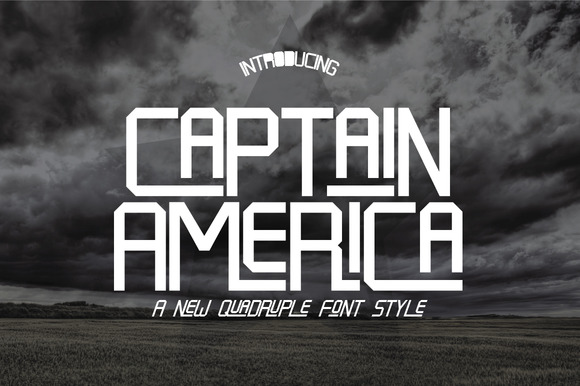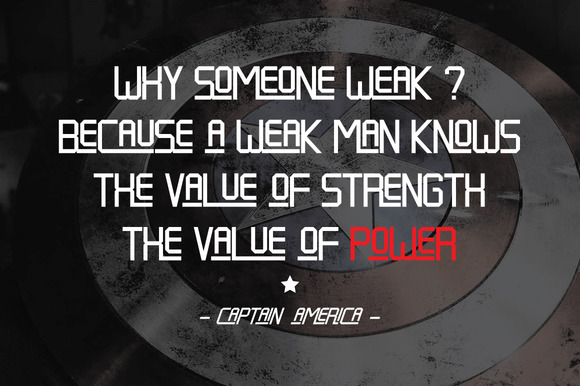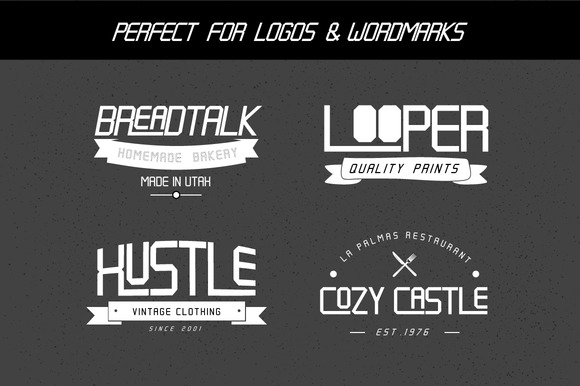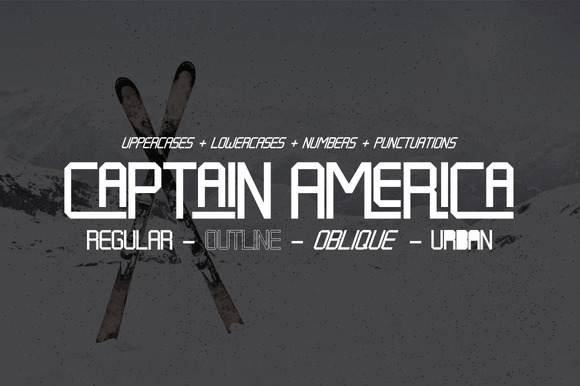
Captain America Font
Can be used for various purposes namely headings, logos, wedding invitations, t-shirts, letterheads, signages, labels, news, posters, badges etc.